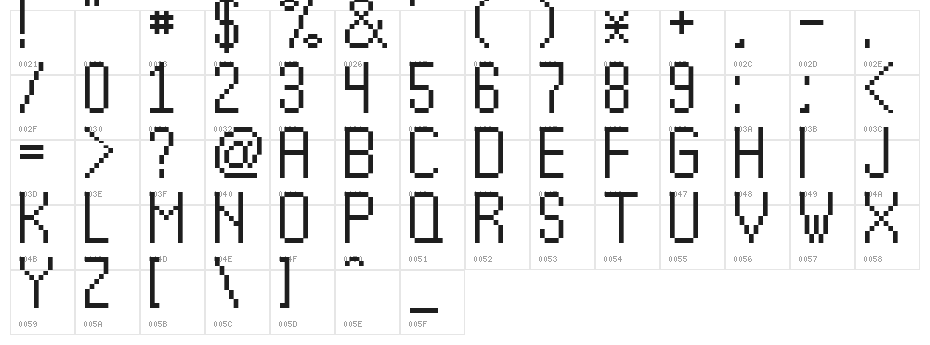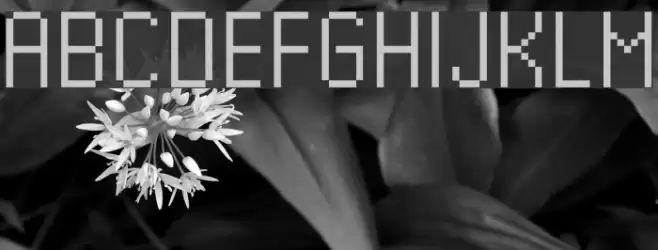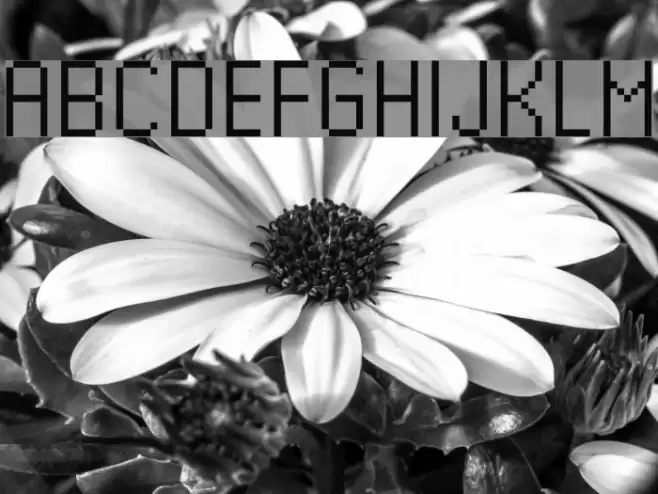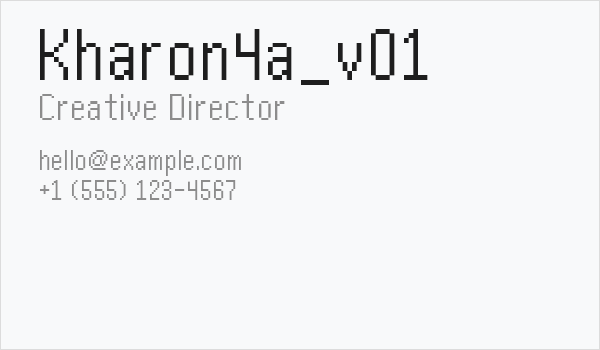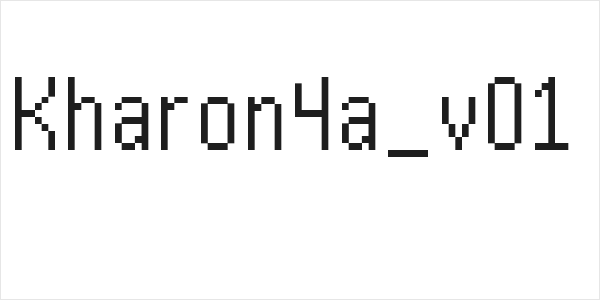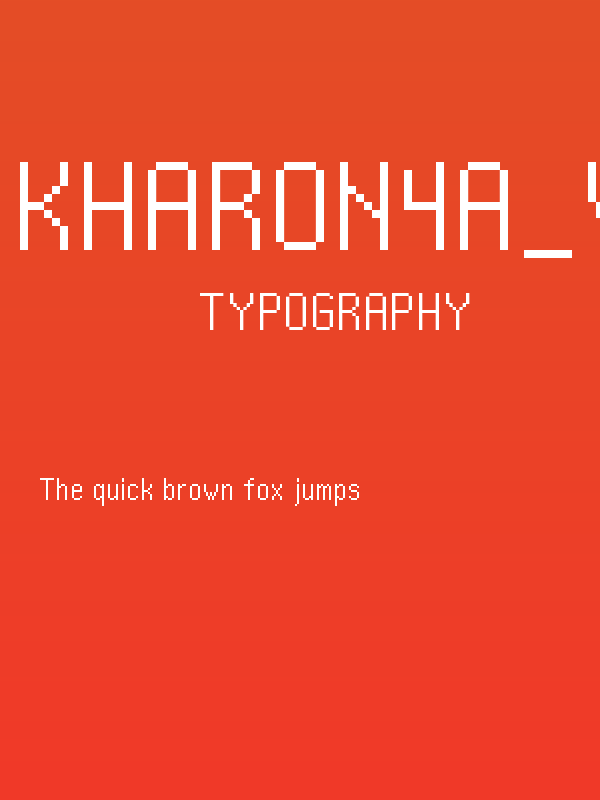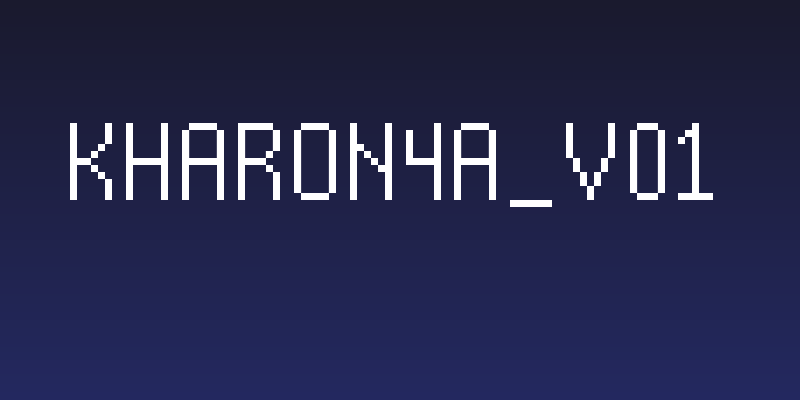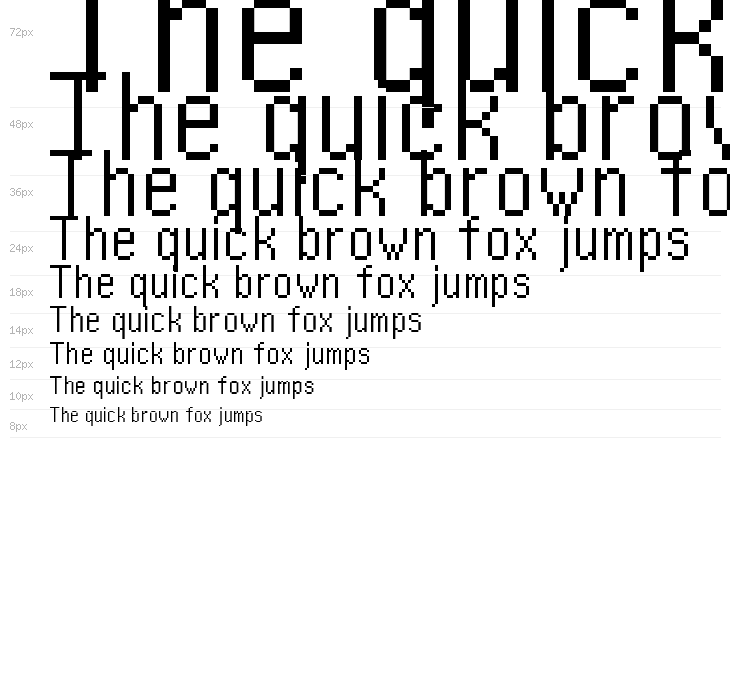
Kharon4a_v01 Font
Kharon4a_v01 Description
This font features a pixelated, grid-like structure reminiscent of early digital displays and retro video games. Each character is composed of a series of square pixels, creating a blocky and geometric appearance. The uppercase and lowercase letters maintain a consistent height and width, contributing to a uniform and monospaced style. Numbers and special characters follow the same design principles, ensuring readability and a cohesive look. The font's simplicity and clarity make it ideal for digital and retro-themed projects, where a nostalgic or technical aesthetic is desired.
| Use Case | Headlines, Digital displays, Retro-themed designs |
| Proposed Projects | Ideal for retro video games, digital art, tech-themed designs, and any project requiring a nostalgic digital look. |